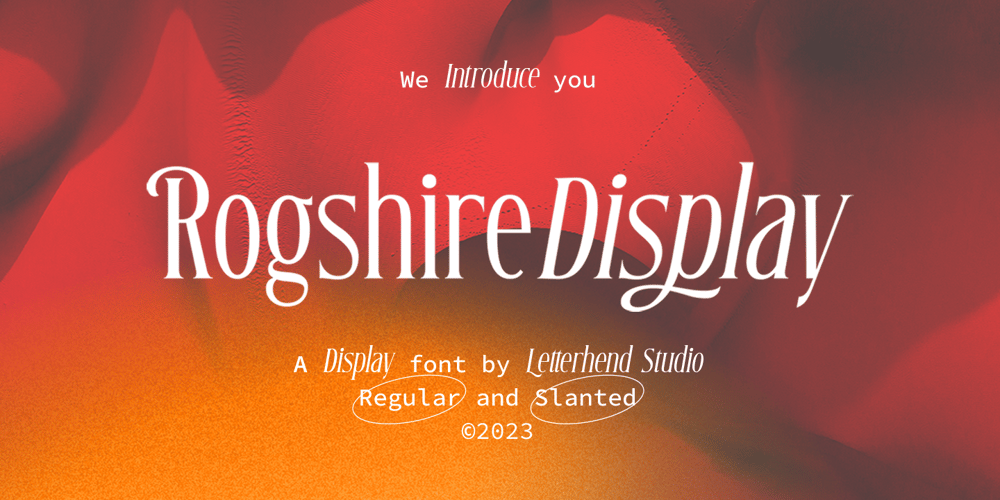
Rogshire Font Family was designed by Hendry Juanda and published by Letterhend. Rogshire contains 2 styles and family package options. Introducing, Roghsire .A stylish displa font with chic & classic looks. This typeface has been made carefully to make sure its premium quality and luxury feel. It comes with Slant Version. Very suitable for logo, headline, tittle, and the other various formal forms such as invitations, labels, logos, magazines, books, greeting / wedding cards, packaging, fashion, make up, stationery, novels, labels or any type of advertising purpose.Features : Uppercase & lowercase Numbers and punctuation Alternates & Ligatures Multilingual PUA encoded We highly recommend using a program that supports OpenType features and Glyphs panels like many of Adobe apps and Corel Draw, so you can see and access all Glyph variations.